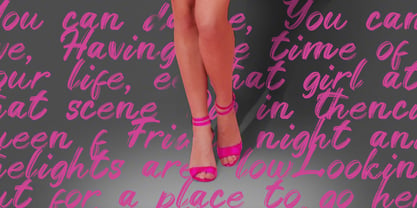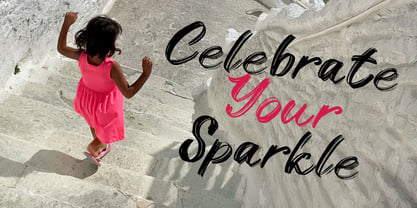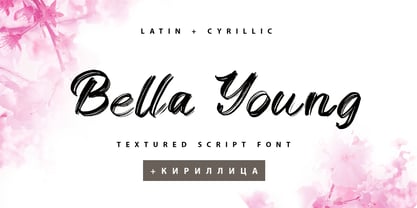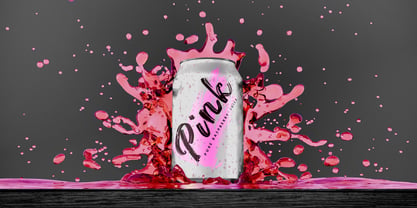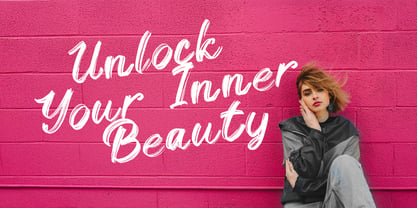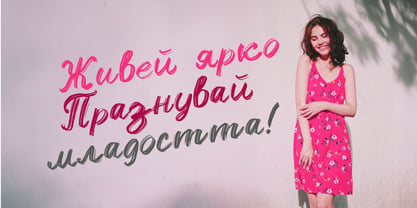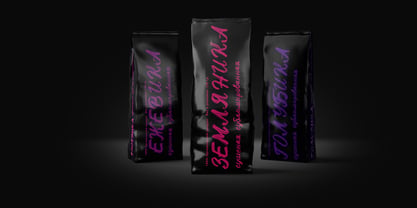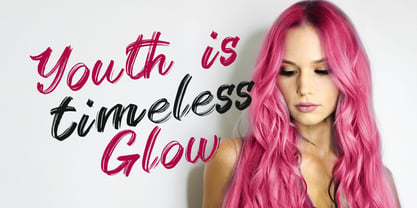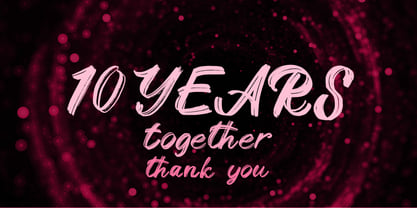
Bella Young Cyrillic
Die Schriftfamilie Bella Young Cyrillic wurde von Iryna Dviliuk entworfen und von Ira Dvilyuk veröffentlicht. Bella Young Cyrillic enthält 1 Stile. Mehr über diese Familie
Bella Young Cyrillic Textured Script font was handwritten with a dry brush and will look great on branding design, posters, apparel, logotype, website header, fashion design, wedding card design, and more. Bella Young textured script font contains a full set of uppercase and lowercase letters and 23 ligatures - which can be used to create a handwritten calligraphy look. The Cyrillic part of the font contains the uppercase letters lowercase letters and 18 ligatures, giving a realistic hand-lettered style. Multilingual Support for 32 languages: Latin glyphs for Afrikaans, Albanian, Basque, Bosnian, Catalan, Danish, Dutch, English, Estonian, Faroese, Filipino, Finnish, French, Galician, Indonesian, Irish, Italian, Malay, Norwegian Bokmål, Portuguese, Slovenian, Spanish, Swahili, Swedish, Turkish, Welsh, Zulu. And Cyrillic glyphs support Russian, Belorussian, Bulgarian, Ukrainian, and Kazakh languages. Works perfectly on the Canva platform. For Cricut & Silhouette recommended.
Hello! My name is Ira Dvilyuk and handwritten font making is my passion. I have been drawing all my life, but when I started freelancing, my cherished dream was to create handwritten fonts. I value lightness, elegance, and grace in design and typography, so fonts that I create are in a delicate feminine style suitable for wedding invitations or gentle designs. My favorite is to reflect in my typeface the natural handwriting of a writing tool. I think it is very important to create fonts with a high level of quality, complementing my font with alternatives, ligatures, and language support not only for the extended Latin but also for the Cyrillic too. I sincerely hope that my fonts will help you bring your ideas to life.